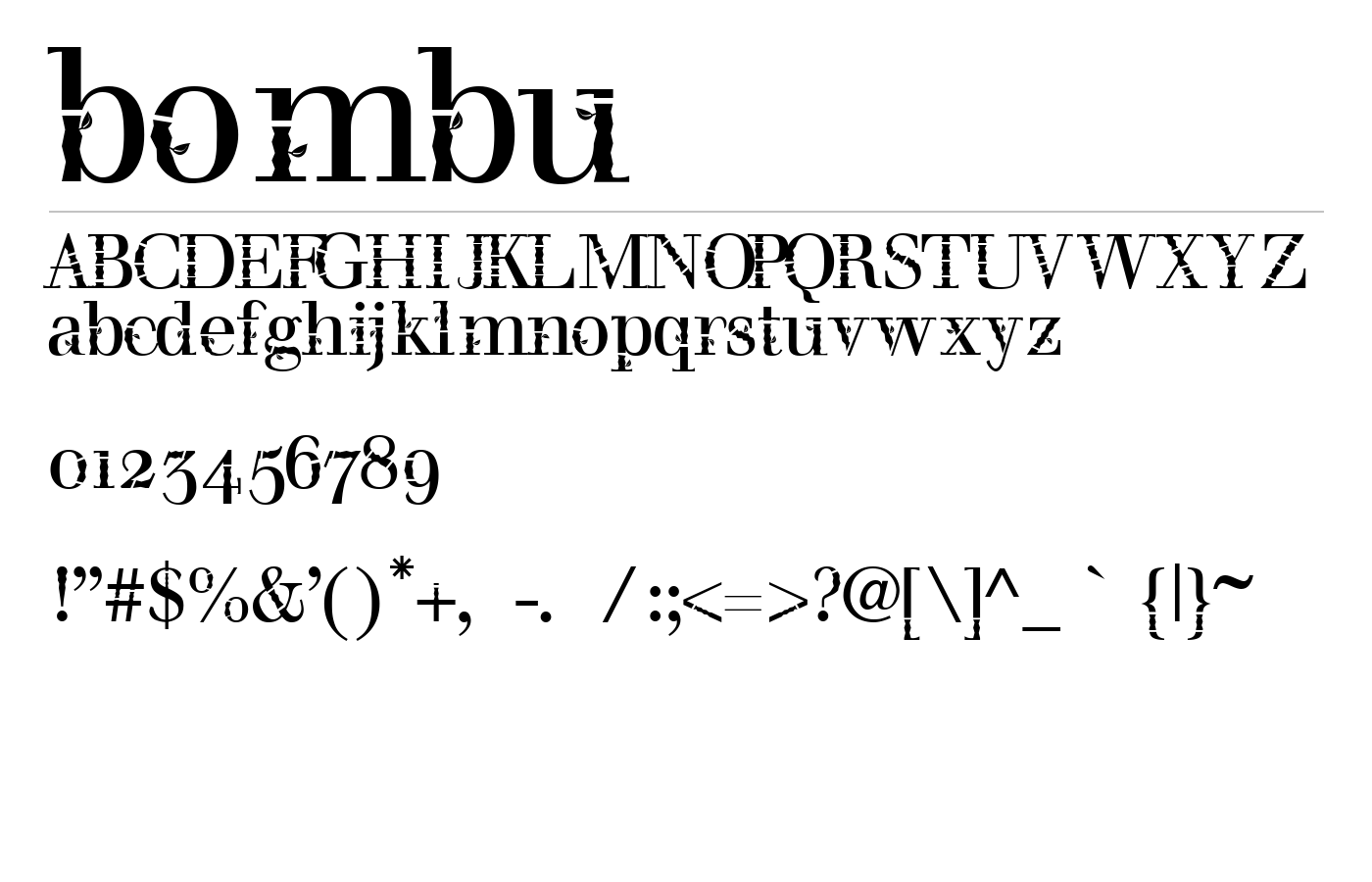
Bombu is a high-contrast serif font with a unique, distressed texture that gives it a vintage and rugged feel. Its sharp, bracketed serifs combined with uneven, fragmented strokes make it ideal for eye-catching headlines, logos, and designs that seek to convey an edgy, artistic, or antique personality. This font works well in creative branding or editorial projects where distinctiveness and a handcrafted aesthetic are desired.
bombu Font
About bombu Font